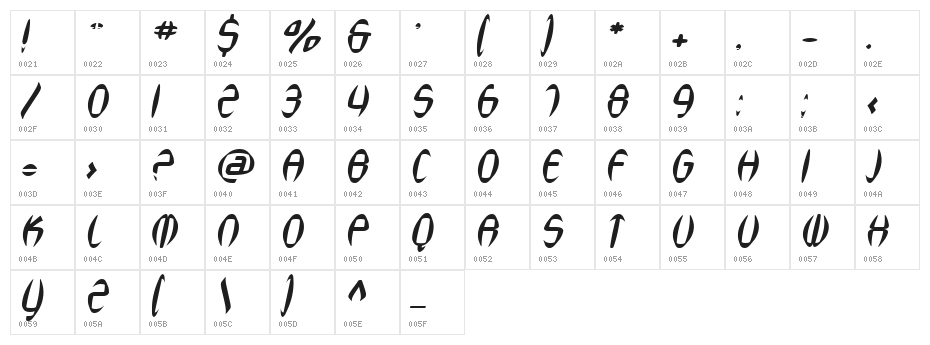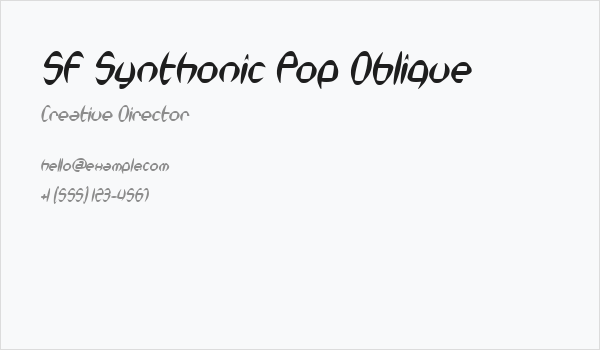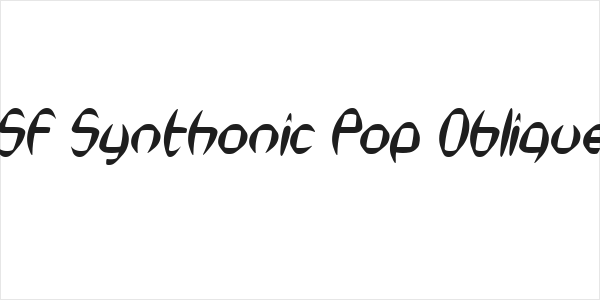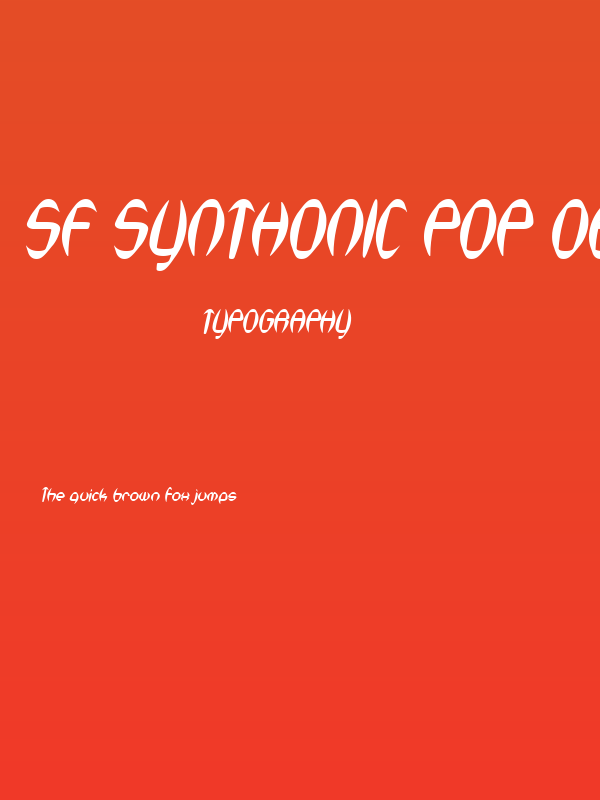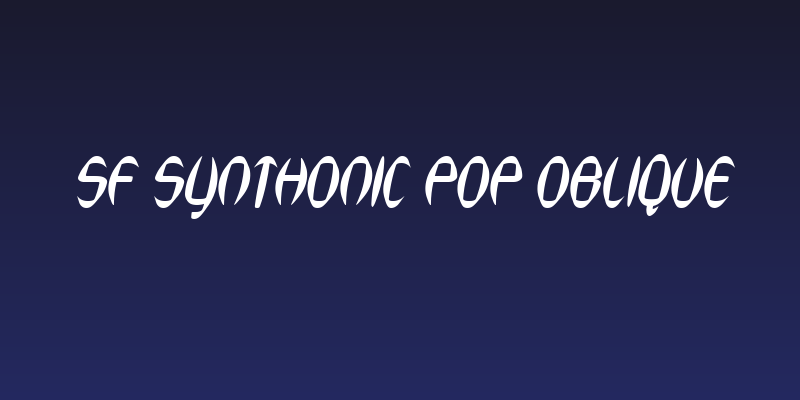
SF Synthonic Pop Oblique Font
SF Synthonic Pop Oblique Description
This font features a dynamic and futuristic style, characterized by its oblique and angular letterforms. The strokes are bold and consistent, with a slight slant that gives it a sense of motion and energy. The uppercase and lowercase letters maintain a cohesive design, with unique curves and sharp edges that create a modern aesthetic. The numerals and special characters are equally stylized, ensuring uniformity across all glyphs. This font's distinct appearance makes it suitable for projects that require a contemporary and edgy look.
| Proposed Projects | Ideal for sci-fi themed designs, modern branding, video game titles, and tech-related projects. |